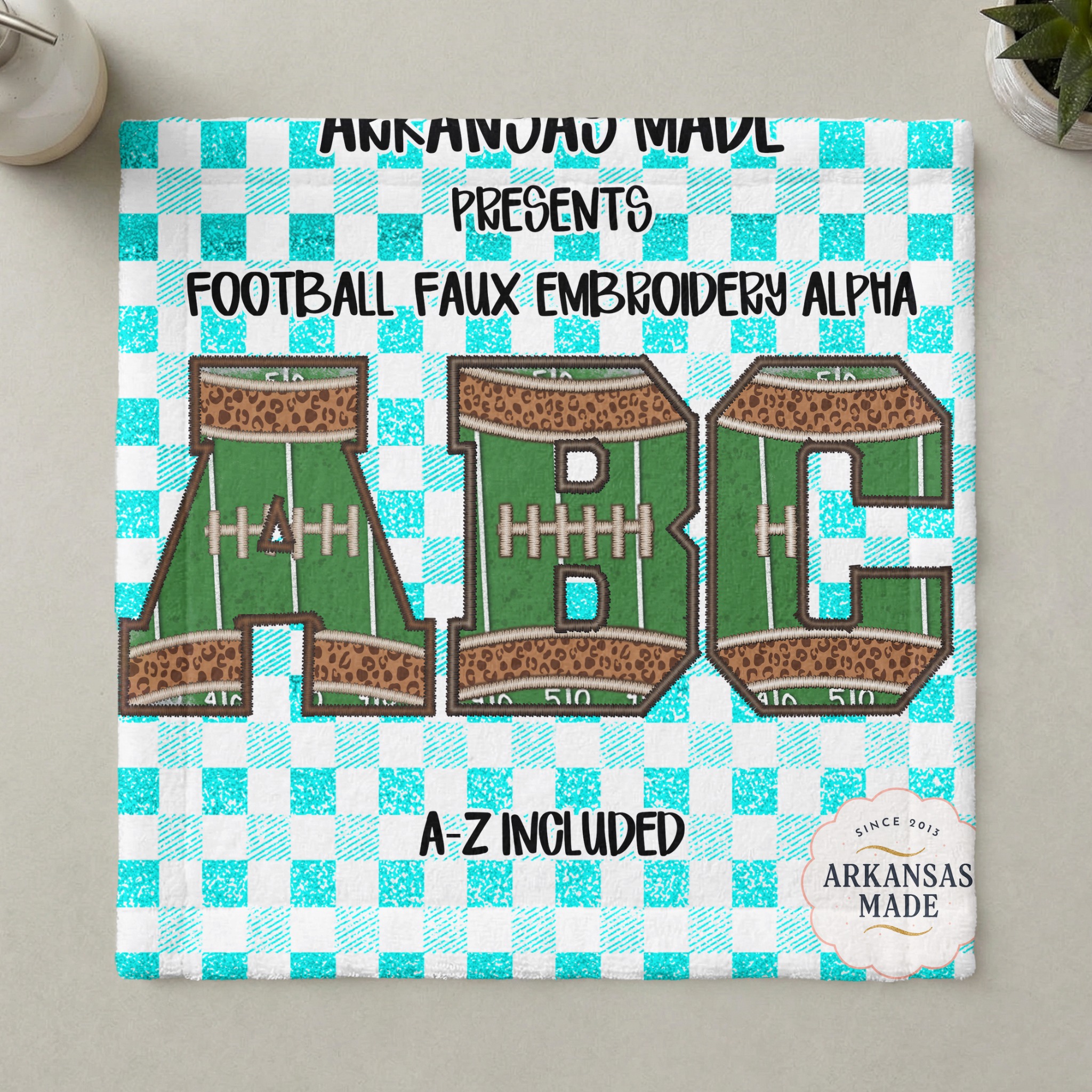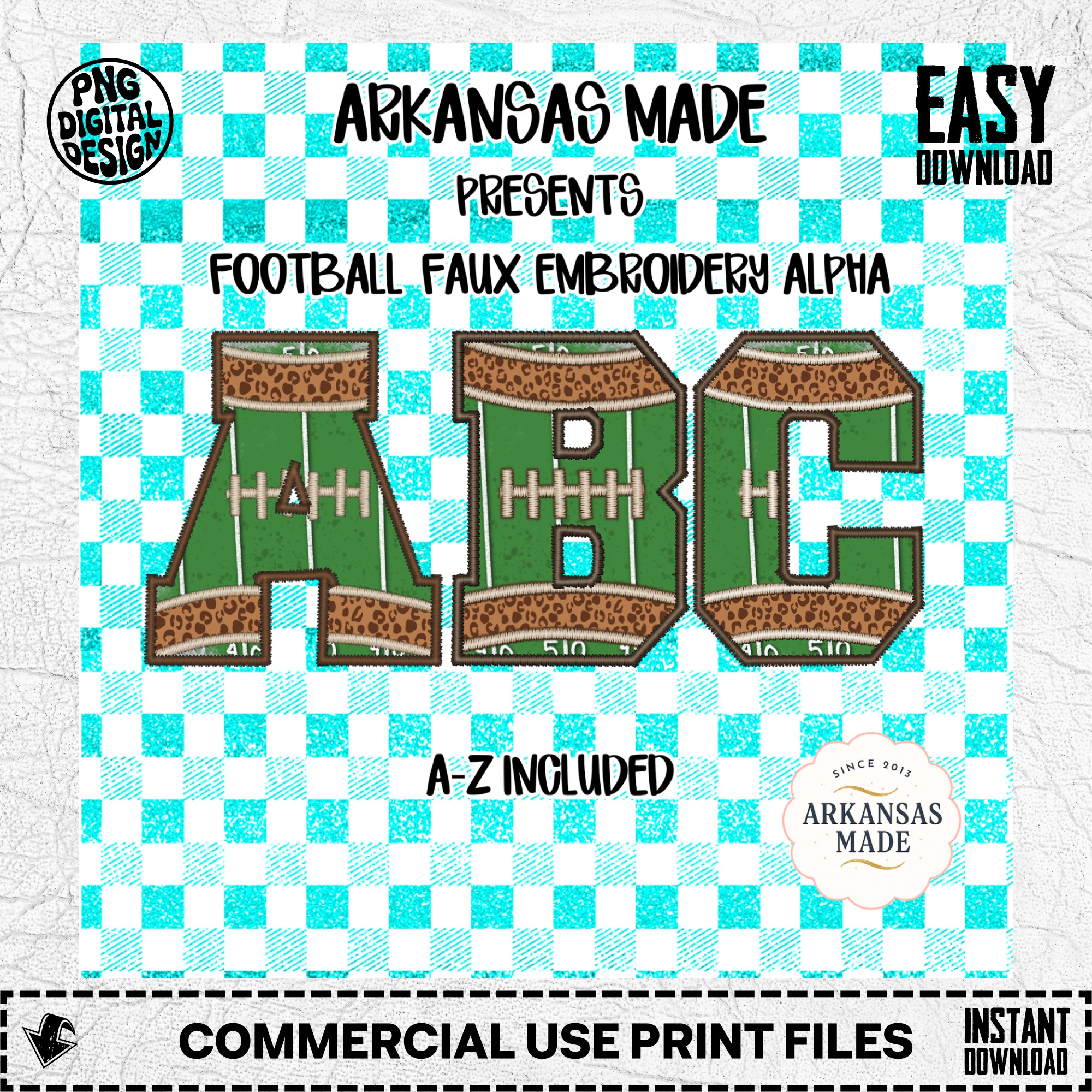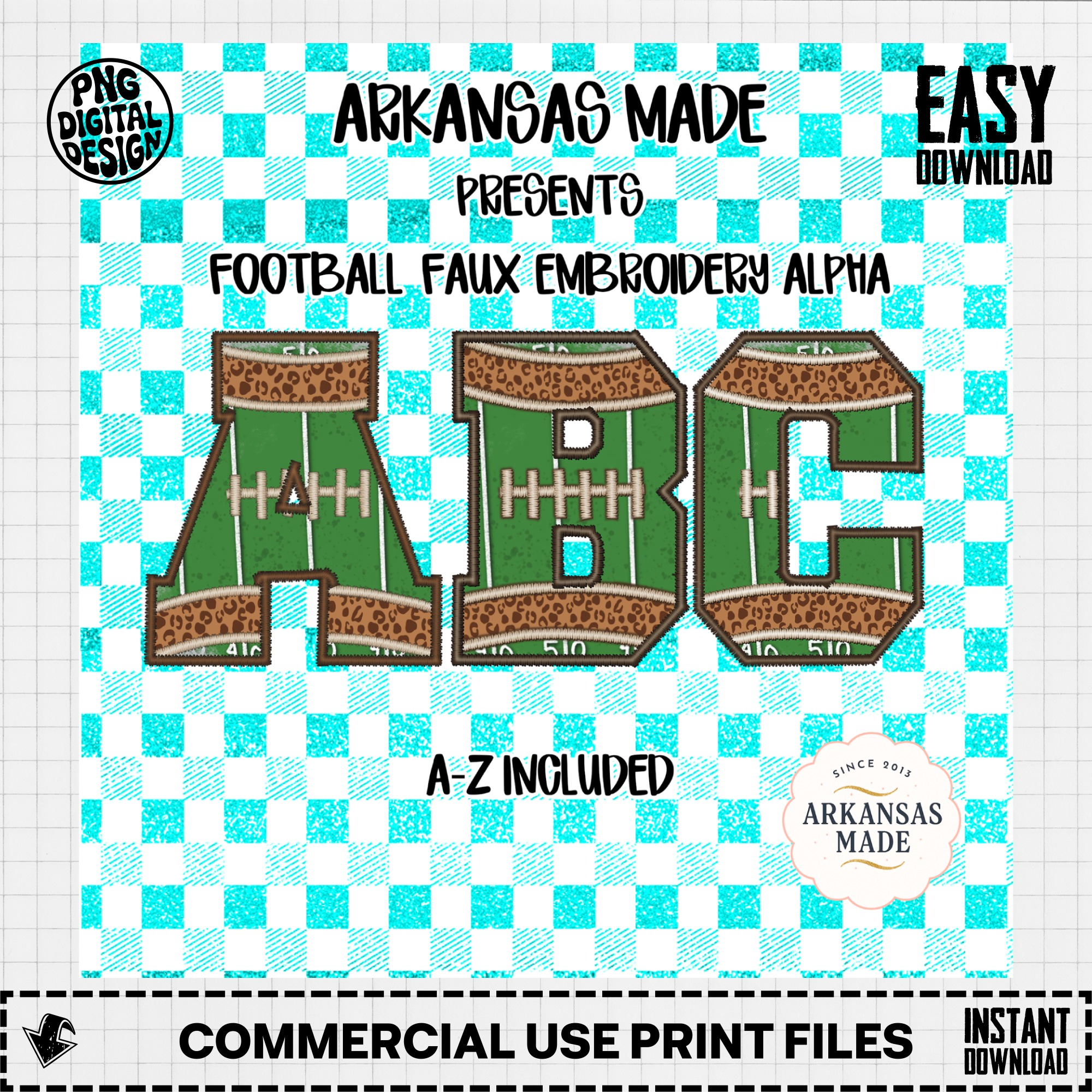
Football Faux Embroidery Alphabet SVG PNG, Leopard Print Sports Letters Digital Download, Team Spirit Varsity Font, Game Day Sublimation
Score big with our Football Faux Embroidery Alphabet SVG PNG! This digital download features varsity letters with a football field texture and trendy leopard print. Perfect for football moms, coaches, and sports enthusiasts, these unique letters are ideal for creating custom apparel, game day decorations, or personalized gifts. Add a touch of team spirit and wild style to your DIY projects, whether for a tailgate party or a special event. Great for birthdays, end-of-season celebrations, or just showing off your love for the game!